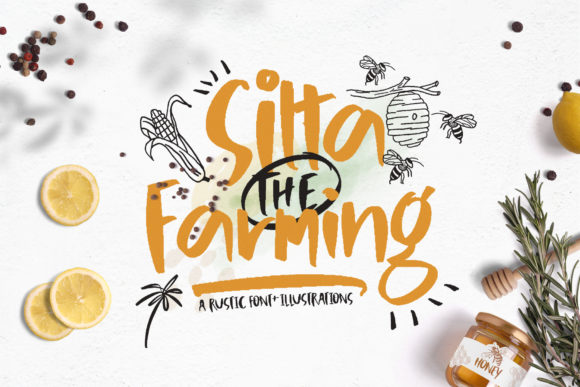
Introduce the Exquisite Silta the Farming Font: A Script of Elegance, Style, and Endless Creativity
Welcome to the world of Silta the Farming, a script font that effortlessly merges charm, sophistication, and boundless creativity. Its elegant strokes and captivating curves bring an air of timeless beauty to any design, leaving an everlasting impression. This font is an exceptional choice for those seeking a graceful and refreshing touch for their projects, be it magazine titles, branding materials, wedding invitations, or any endeavor where style and elegance are paramount.
A Creation of Passion and Precision: The Silta the Farming Font Story
Crafted with meticulous care by the skilled hands of alcode, Silta the Farming is a testament to the art of typography. Each letterform has been thoughtfully designed, featuring intricate details and harmonious proportions. The font's natural flow and organic aesthetic evoke a sense of authenticity, making it an ideal selection for those seeking a touch of genuineness and warmth in their designs.
Unleash Your Imagination with Silta the Farming's Versatility
With Silta the Farming, versatility knows no bounds. Its remarkable adaptability makes it suitable for a wide range of design projects. Whether you're working on magazine titles, book covers, branding materials, social media graphics, or any creative endeavor that calls for a touch of elegance, this font has got you covered. Let your creativity soar as you explore the endless possibilities that Silta the Farming offers.
Create Designs that Mesmerize: The Emotional Impact of Silta the Farming
Silta the Farming's ability to evoke emotions is truly remarkable. Its delicate strokes and graceful curves exude a sense of sophistication and refinement, while its playful personality adds a touch of whimsy and charm. This font has a unique ability to capture attention and leave a lasting impression, ensuring that your designs stand out from the crowd.
A Font of Ease and Convenience: Experience the Silta the Farming Difference
Elevate Your Designs to New Heights: Discover the Silta the Farming Advantage
If you're seeking a font that will elevate your designs to new heights, look no further than Silta the Farming. Its timeless beauty and versatility make it an indispensable tool for designers of all levels. Embark on a creative journey with Silta the Farming, and witness the transformation of your projects into masterpieces that captivate and inspire.